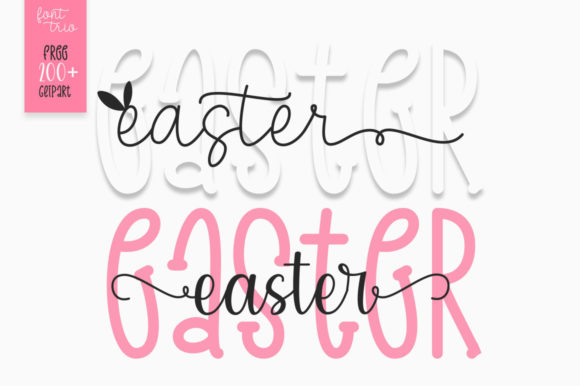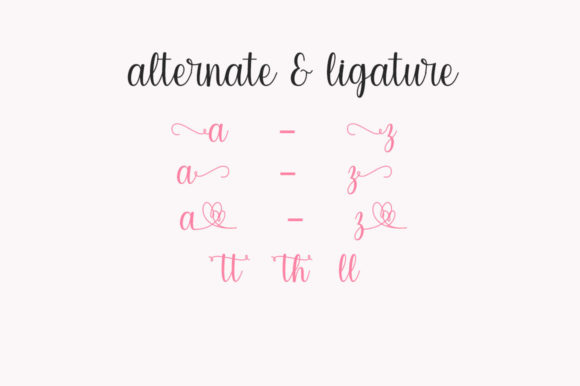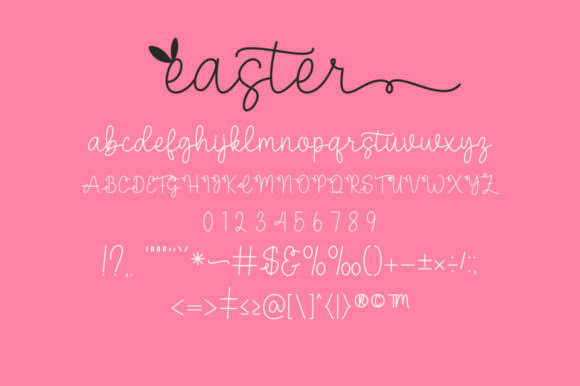
About Easter Font
The “Easter” font collection comprises three distinct styles: handwritten, script, and serif. These styles are meticulously designed to harmonize with each other flawlessly. Whether utilized collectively or individually, these fonts are exceptionally suited to infusing your crafts with an elegant and cheerful flair.
Each style boasts unique attributes catering to various design needs. The handwritten style imparts a personal and intimate touch, while the script style exudes a modern and sophisticated ambiance. On the other hand, the serif style offers a traditional charm. The synergy of these three styles establishes a perfect equilibrium, allowing you to approach your designs with an array of styles, nurturing creativity without constraints.
The “Easter” font collection is encoded with PUA (Private Use Area) coding. This facilitates effortless access to special characters, alternate letterforms, and ornamental flourishes inherent to each style. This feature empowers you to bestow your designs with added depth and uniqueness.
Irrespective of the project genre, the “Easter” font collection stands as an excellent choice to introduce an elegant, vibrant, and jubilant ambiance to your designs.